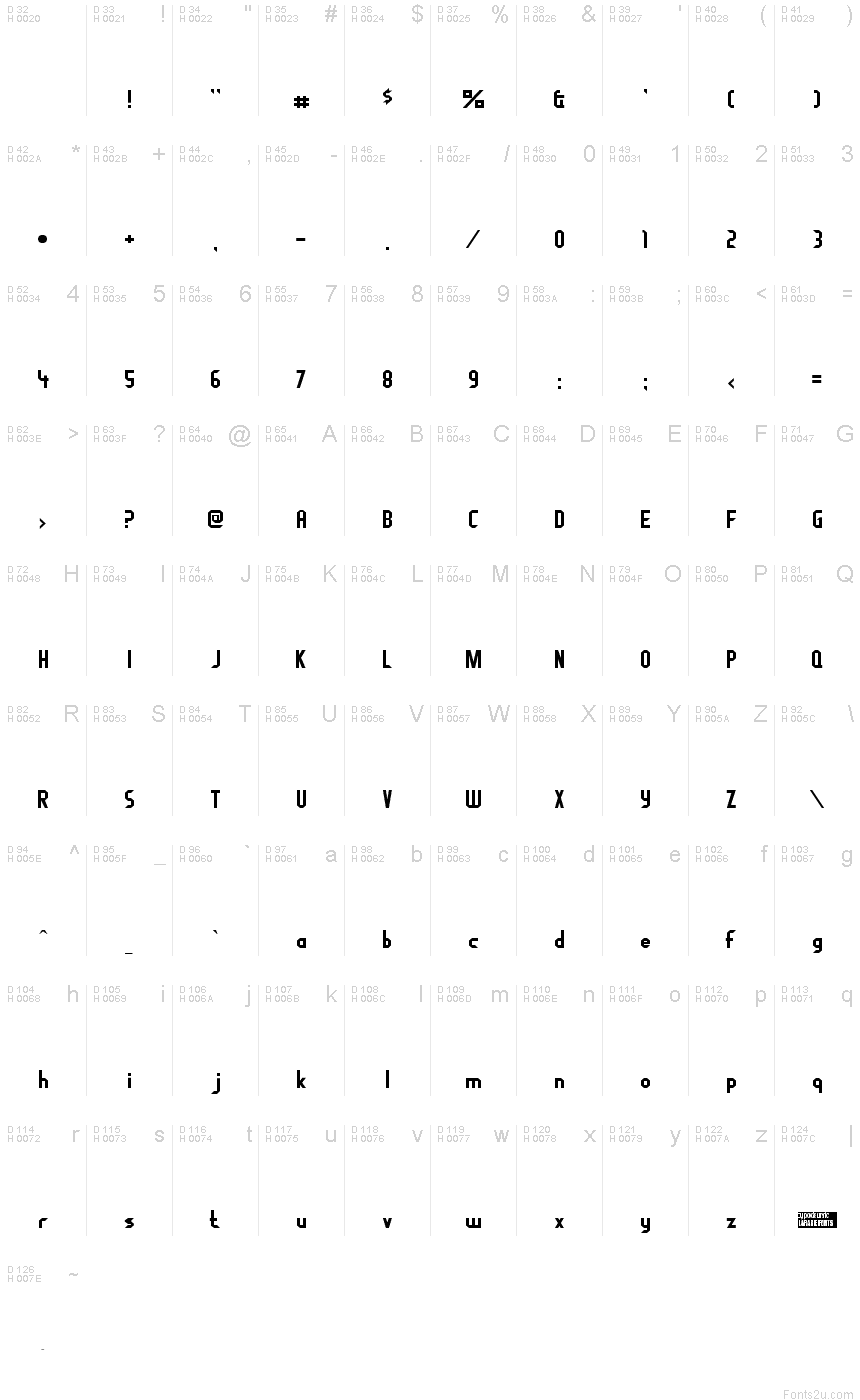
Fragile Bombers
Fragile Bombers font by Ray Larabie is a free techno display typeface. Its chunky, modular letters snap together like digital tiles, with abrupt corners and squared bowls that feel both brutal and playful. The rhythm is tight and mechanical, giving words a blocky, futuristic weight that still reads cleanly at a glance.
Using Fragile Bombers, text feels engineered rather than written-great for sci-fi posters, club flyers, game titles, hacker-style interfaces, stickers, and bold logotypes. This free font shines at larger sizes where its angular cuts can really show, and it pairs well with a simple neo-grotesque sans in smaller supporting text to keep layouts balanced and readable.